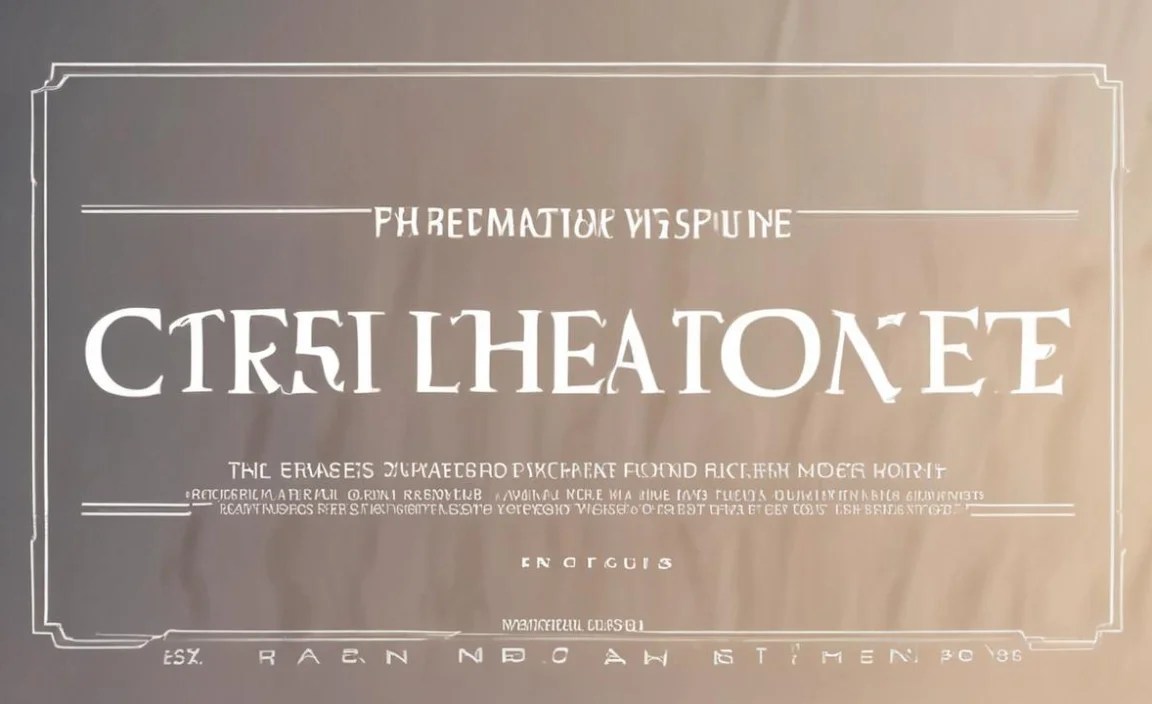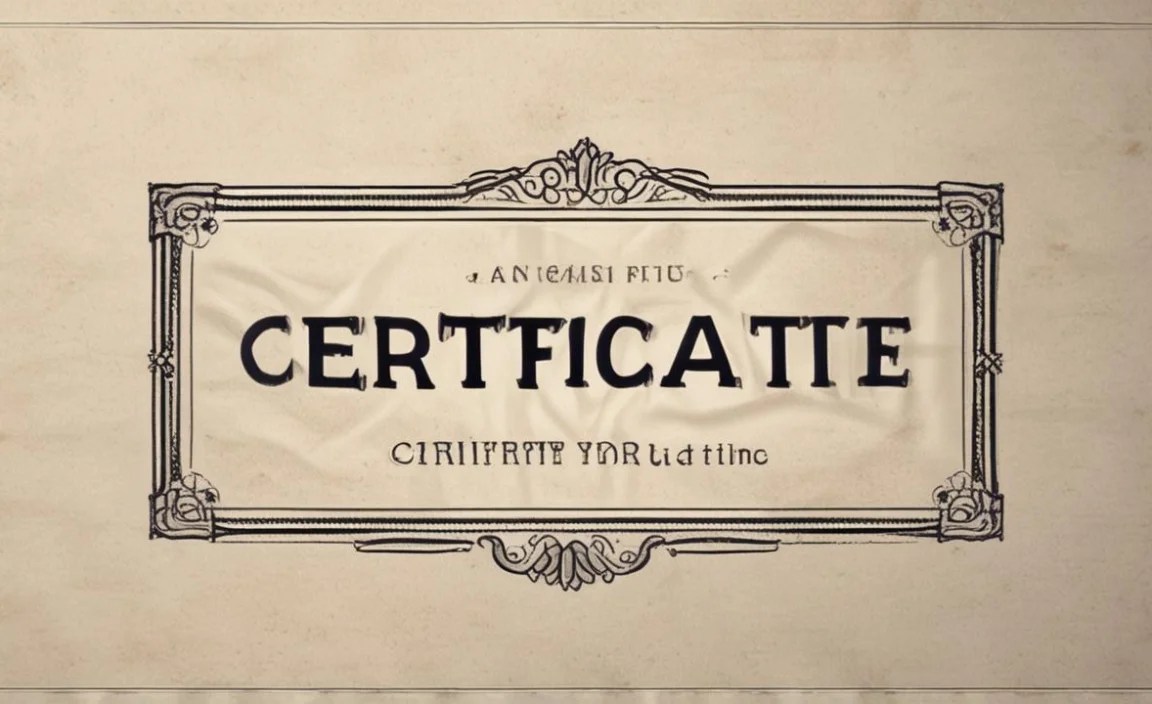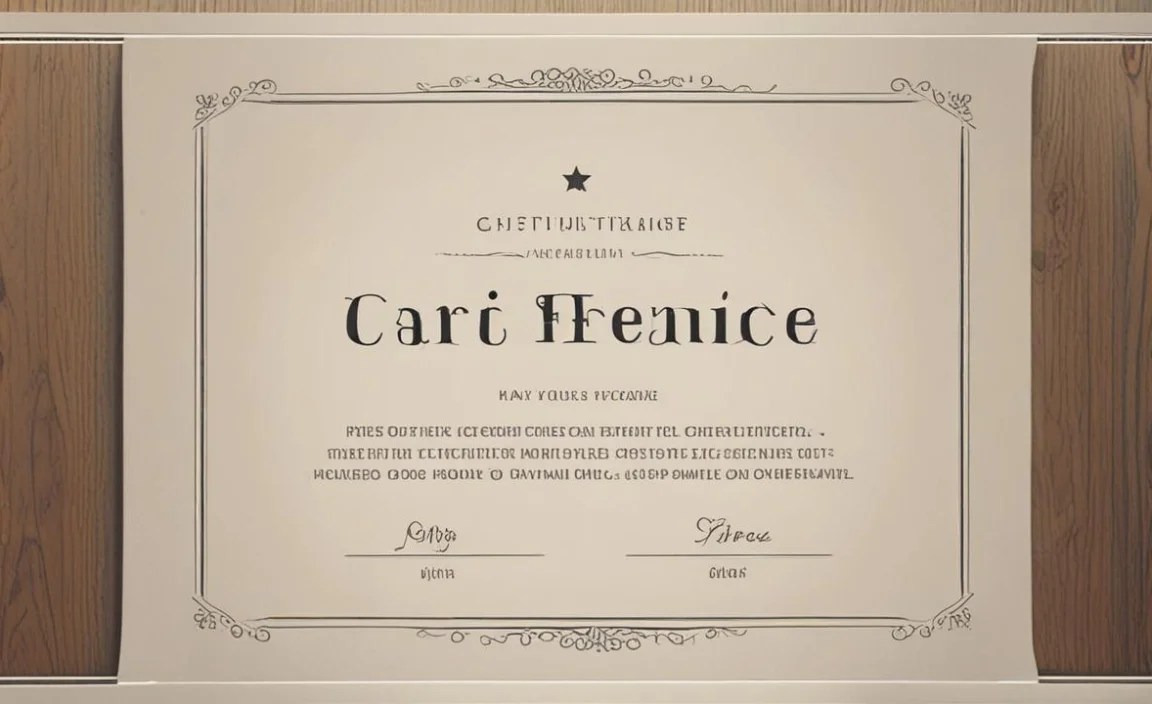
When designing a certificate, the font you choose is not just a stylistic decision—it’s an integral part of the document’s professionalism, readability, and visual appeal.
Whether you’re working on a formal document for an academic achievement, corporate recognition, or a personal milestone, selecting the right font can elevate the overall presentation and ensure that the text conveys the right message. In this guide, we’ll explore all aspects of certificate fonts, from choosing the right font family to pairing fonts for an impactful design.
Font Families For Certificates
A font family refers to a collection of typefaces that share a similar design, typically with variations in weight, width, and style. For certificates, fonts from serif or sans serif families are typically the most suitable, though script fonts, decorative fonts, and handwritten fonts can also be used for specific purposes like signatures or names.
1.Serif Fonts: Serif fonts, such as Times New Roman, have small decorative strokes at the end of characters, adding a formal, classic touch to certificates. They are often used for formal documents due to their traditional look and high readability.
- Popular Serif Fonts for Certificates:
- Times New Roman
- Georgia
- Garamond
- Popular Serif Fonts for Certificates:
2.Sans serif fonts: Sans serif fonts, which lack the small strokes found in serif fonts, give a more modern, clean, and minimalistic look. They are often used in more contemporary or modern font designs. Open Sans is a great option for certificates that need to convey clarity and simplicity.
- Popular Sans Serif Fonts for Certificates:
- Open Sans
- Arial
- Helvetica
- Popular Sans Serif Fonts for Certificates:
3.Script Fonts: These fonts resemble cursive handwriting, which can add an elegant, personal touch to a certificate. Lucida Calligraphy is a great example of a calligraphy font that can be handy for signatures or key information, such as the name of the recipient or issuer.
- Popular Script Fonts for Certificates:
- Lucida Calligraphy
- Brush Script
- Dancing Script
- Popular Script Fonts for Certificates:
4.Handwritten Fonts: If you’re aiming for a more informal, personalized feel, a handwritten font might be suitable for certificates. However, ensure the text remains legible to maintain professionalism. These fonts often evoke a sense of authenticity and personal connection.
- Popular Handwritten Fonts for Certificates:
- Patrick Hand
- Pacifico
- Satisfy
- Popular Handwritten Fonts for Certificates:
5.Decorative Fonts: Decorative fonts, often highly stylized, can be used sparingly in certificates, typically for embellishments or headings. They should be paired with more readable fonts for the main text.
- Popular Decorative Fonts for Certificates:
- Playfair Display
- Bodoni
- Cinzel
- Popular Decorative Fonts for Certificates:
Font Size And Style For Certificates
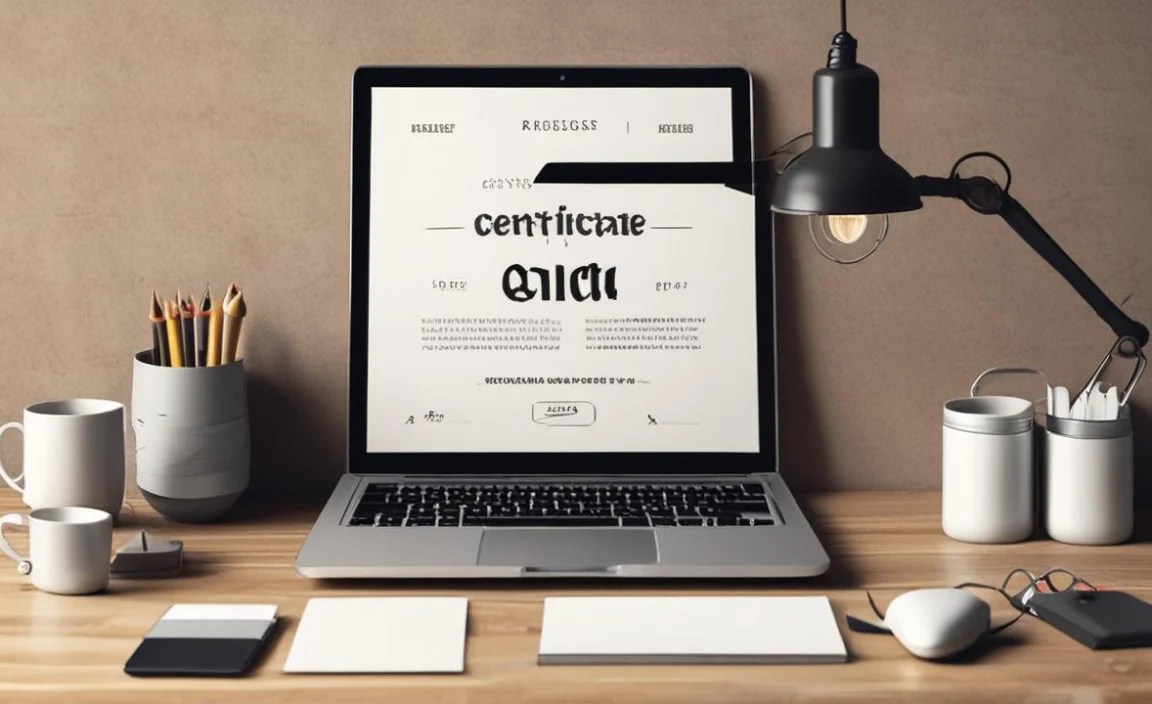
Font size is one of the most critical considerations when designing a certificate. You’ll want to ensure the text is large enough to be readable, but not overwhelming. Typically, body text on a certificate should be between 10-12 pt, while headings or names can be larger to create emphasis—generally in the range of 14-18 pt.
Font Style also affects readability and aesthetic appeal. For formal certificates, opt for traditional or simple typefaces for the body text, and use more stylized font styles for emphasis (such as the name or title).
Pairing Fonts For a Balanced Certificate Design
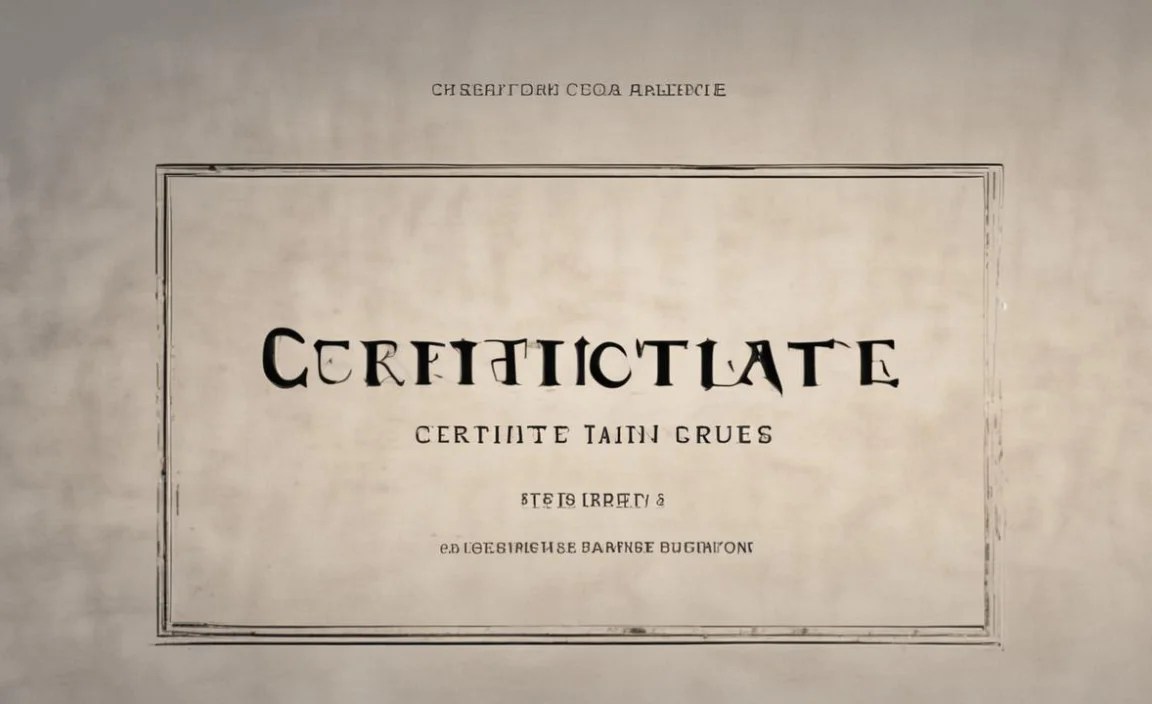
A well-designed certificate often incorporates multiple fonts for different elements of the document. However, pairing fonts can be tricky, as the wrong combination can disrupt the balance of the design. Here are some font pairing options to consider:
- Serif + Sans Serif Combination: Pairing a serif font (like Times New Roman) with a sans serif font (like Open Sans) can create a harmonious contrast, giving your certificate both elegance and clarity.
- Script + Serif Combination: Pairing a script font (like Lucida Calligraphy) with a serif font (like Georgia) works well for documents where you want a personal touch (in the form of a signature or name) while maintaining formality and professionalism in the rest of the text.
- Sans Serif + Sans Serif: Combining different styles of sans serif fonts (for example, pairing Arial with Open Sans) can give your certificate a clean, modern look while maintaining a professional feel.
Choosing the Right Font Color And Contrast
Font color is another important aspect of certificate design. Ensure that the font color contrasts well with the background color of the certificate to maintain readability. Traditional certificates often use black or dark gray text for maximum legibility, while lighter colors or gold tones can be used for emphasis, such as for headings or borders.
3.What Font Size Should I Use On A Certificate?
For body text, a font size of 10-12 pt is ideal. Headings or important text can be larger (14-18 pt).
4.Can I Use Custom Fonts For Certificates?
Yes, custom fonts can be used, but ensure they are legible and appropriate for the document’s tone and professionalism.
5.How Do I Pair Fonts For A Certificate Design?
A great combination is a serif font for the body text (e.g., Times New Roman) and a sans serif font (e.g., Open Sans) for headings. Alternatively, pair a script font with a serif font for emphasis.